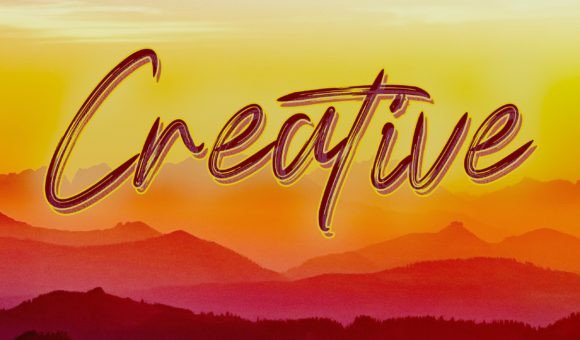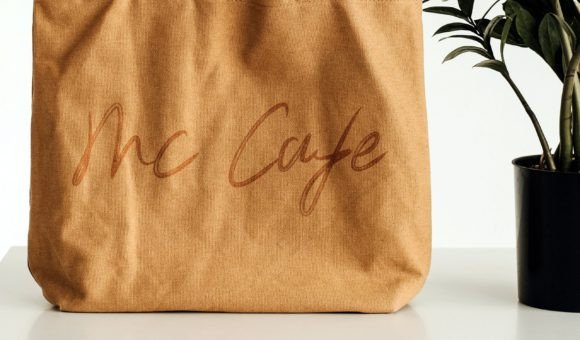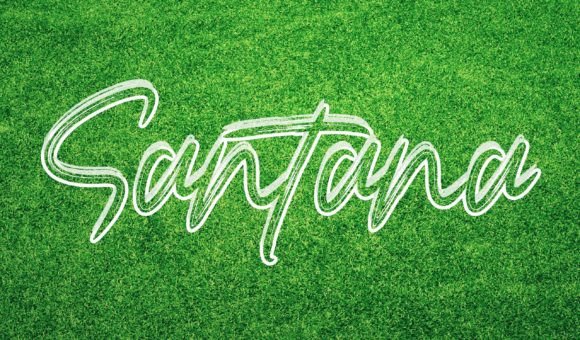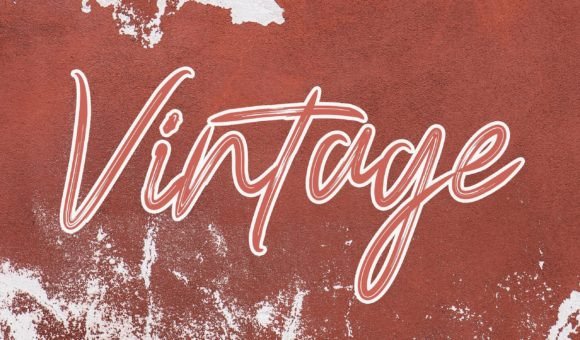
Baster Font: The Ultimate Guide to this Cool and Bold Brushed Handwritten Font
Are you a designer or crafter looking for a unique and versatile font to elevate your creative projects? Look no further than Baster Font, a cool and bold brushed handwritten font that’s perfect for a wide range of applications. In this article, we’ll dive into the world of Baster Font, exploring its features, uses, and benefits, as well as provide tips and inspiration for incorporating it into your designs.
What is Baster Font?
Baster Font is a modern, brushed handwritten font that’s characterized by its bold, expressive lines and cool, casual vibe. With its unique blend of elegance and playfulness, Baster Font is perfect for designers and crafters who want to add a touch of personality to their work. Whether you’re creating a logo, wedding invitation, or poster, Baster Font is sure to make a statement.
Features of Baster Font
So, what makes Baster Font so special? Here are just a few of its key features:
• Bold and expressive lines: Baster Font features bold, sweeping lines that give it a dynamic, hand-crafted feel.
• Cool and casual vibe: With its relaxed, informal style, Baster Font is perfect for designs that need to feel approachable and laid-back.
• Highly versatile: Baster Font can be used for a wide range of applications, from logos and headings to posters and signage.
• Easy to read: Despite its bold, expressive lines, Baster Font is surprisingly easy to read, making it perfect for designs that need to communicate a message.
Uses for Baster Font
So, what can you use Baster Font for? The possibilities are endless! Here are just a few ideas to get you started:
• Logos: Baster Font is perfect for creating unique, memorable logos that stand out from the crowd.
• Wedding invitations: Add a touch of elegance and whimsy to your wedding invitations with Baster Font.
• Headings and titles: Use Baster Font to create bold, eye-catching headings and titles for your designs.
• T-shirts and apparel: Baster Font is a great choice for designing custom t-shirts, hoodies, and other apparel.
• Signage and labels: Use Baster Font to create eye-catching signage and labels for your business or event.
• Posters and flyers: Baster Font is perfect for creating bold, attention-grabbing posters and flyers.
• Badges and icons: Use Baster Font to create custom badges and icons for your designs.
Tips for Using Baster Font
Here are a few tips for getting the most out of Baster Font:
• Experiment with different sizes and colors: Baster Font looks great in a range of sizes and colors, so don’t be afraid to experiment and find the perfect combination for your design.
• Pair it with other fonts: Baster Font pairs well with a range of other fonts, from clean and simple sans-serifs to elegant scripts.
• Use it to add personality: Baster Font is all about personality, so use it to add a touch of whimsy and charm to your designs.
With its bold, expressive lines and cool, casual vibe, Baster Font is the perfect choice for designers and crafters who want to add a touch of personality to their work. Whether you’re creating a logo, wedding invitation, or poster, Baster Font is sure to make a statement. So why wait? Download Baster Font today and start creating!
Font Name Baster Font
Author QAA Studio